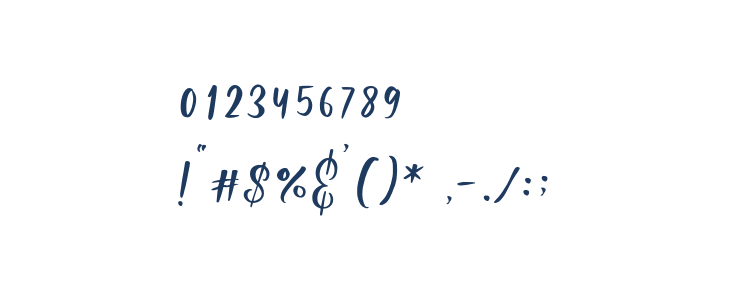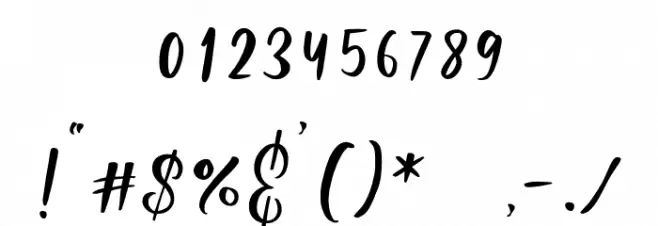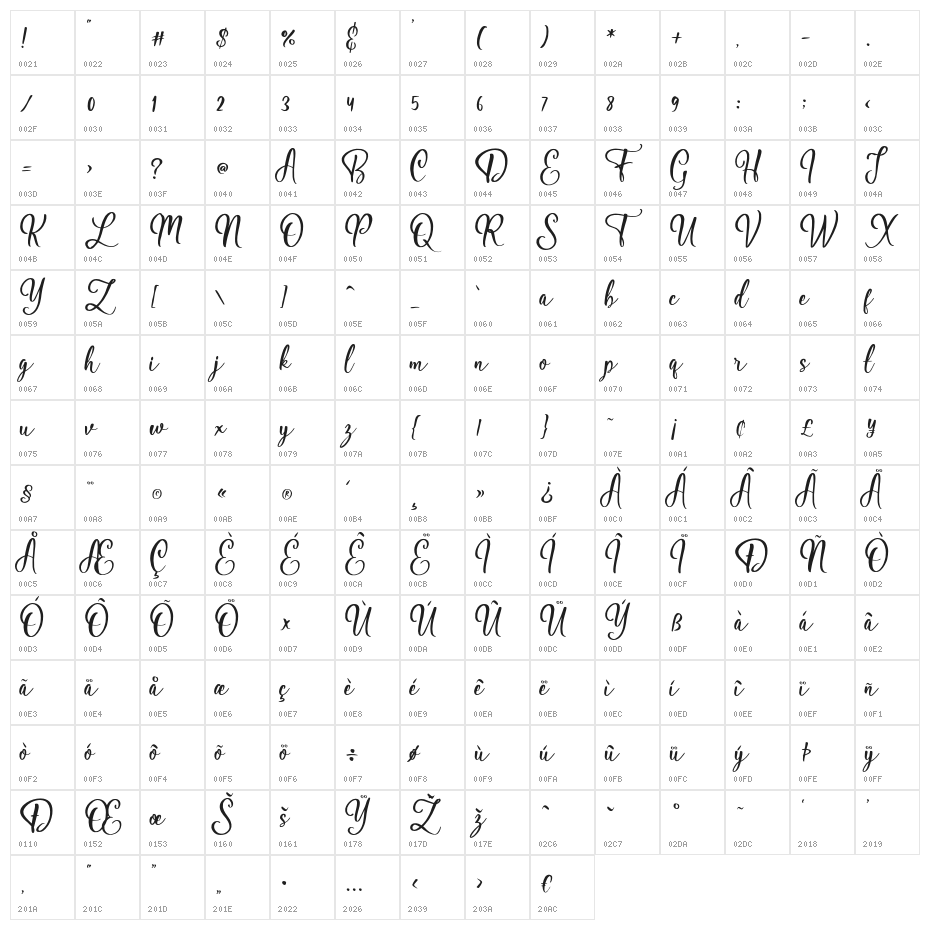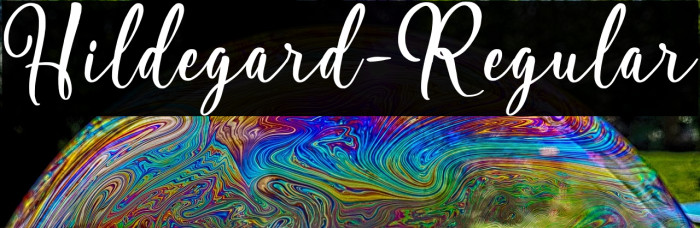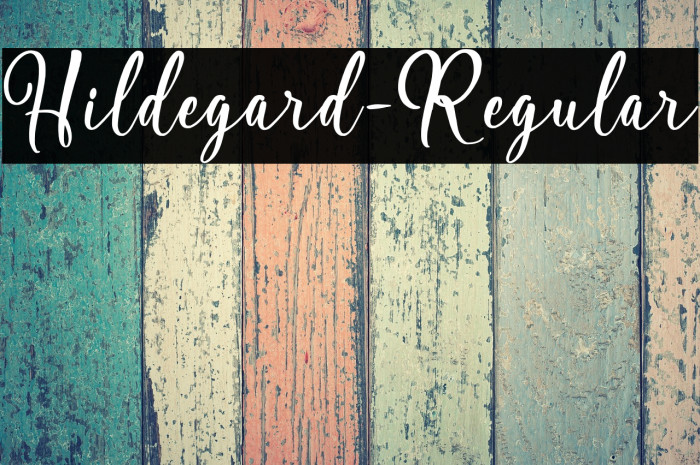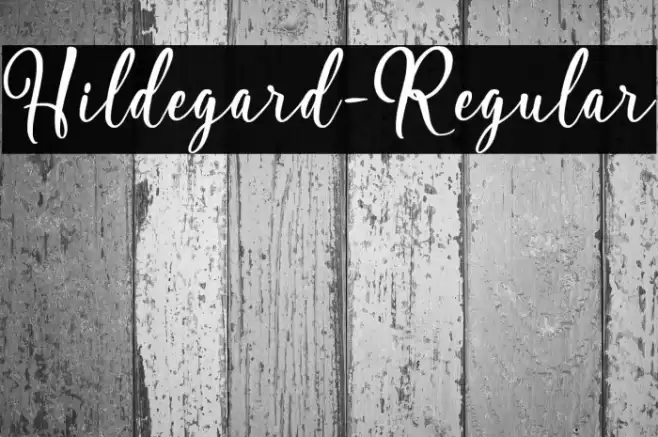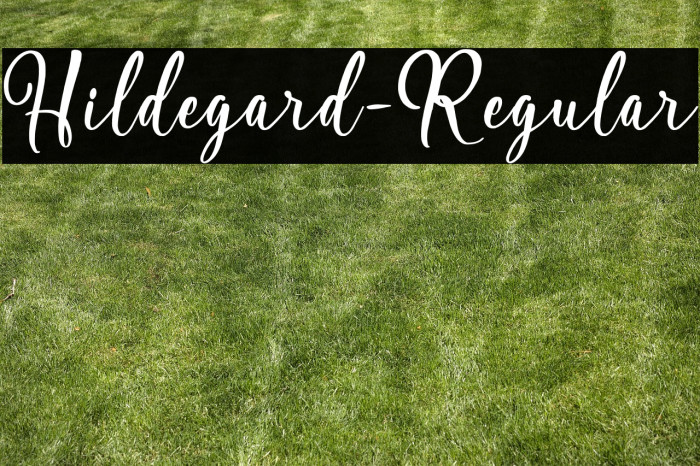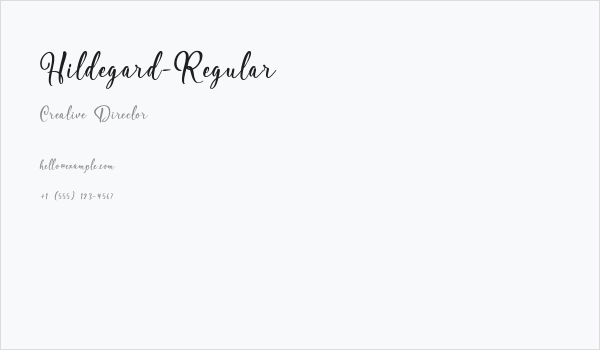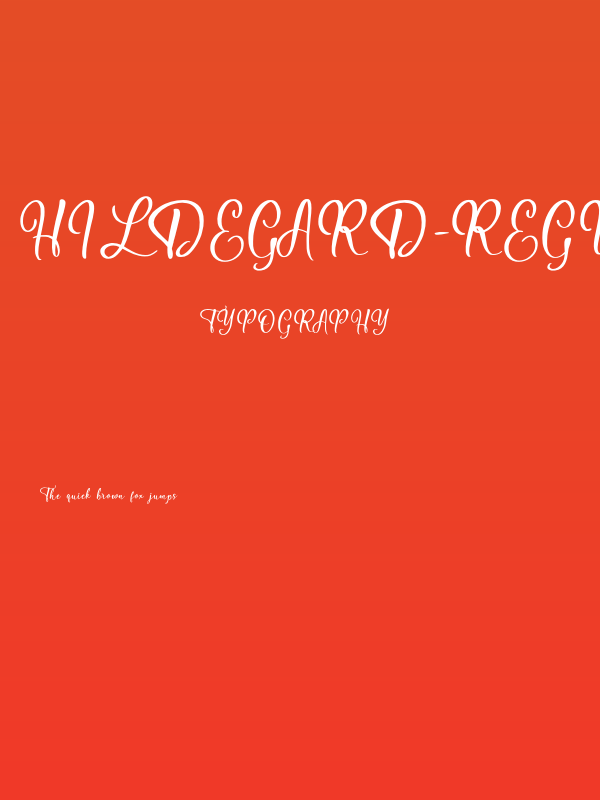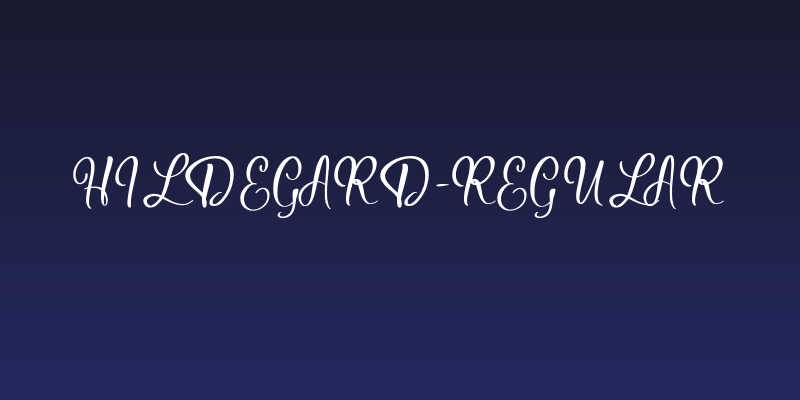
Hildegard-Regular Font
Hildegard-Regular Description
This font features a flowing, cursive style with elegant loops and swashes, giving it a sophisticated and artistic appearance. The uppercase letters are particularly ornate, with flourishes that extend beyond the baseline and cap height, adding a touch of drama and flair. The lowercase letters maintain a consistent style, with smooth connections between characters that enhance readability while preserving the decorative nature. The numerals are bold and clear, matching the overall aesthetic with slight embellishments. Special characters are well-integrated, maintaining the font's cohesive look. This font is ideal for projects that require a touch of elegance and creativity.